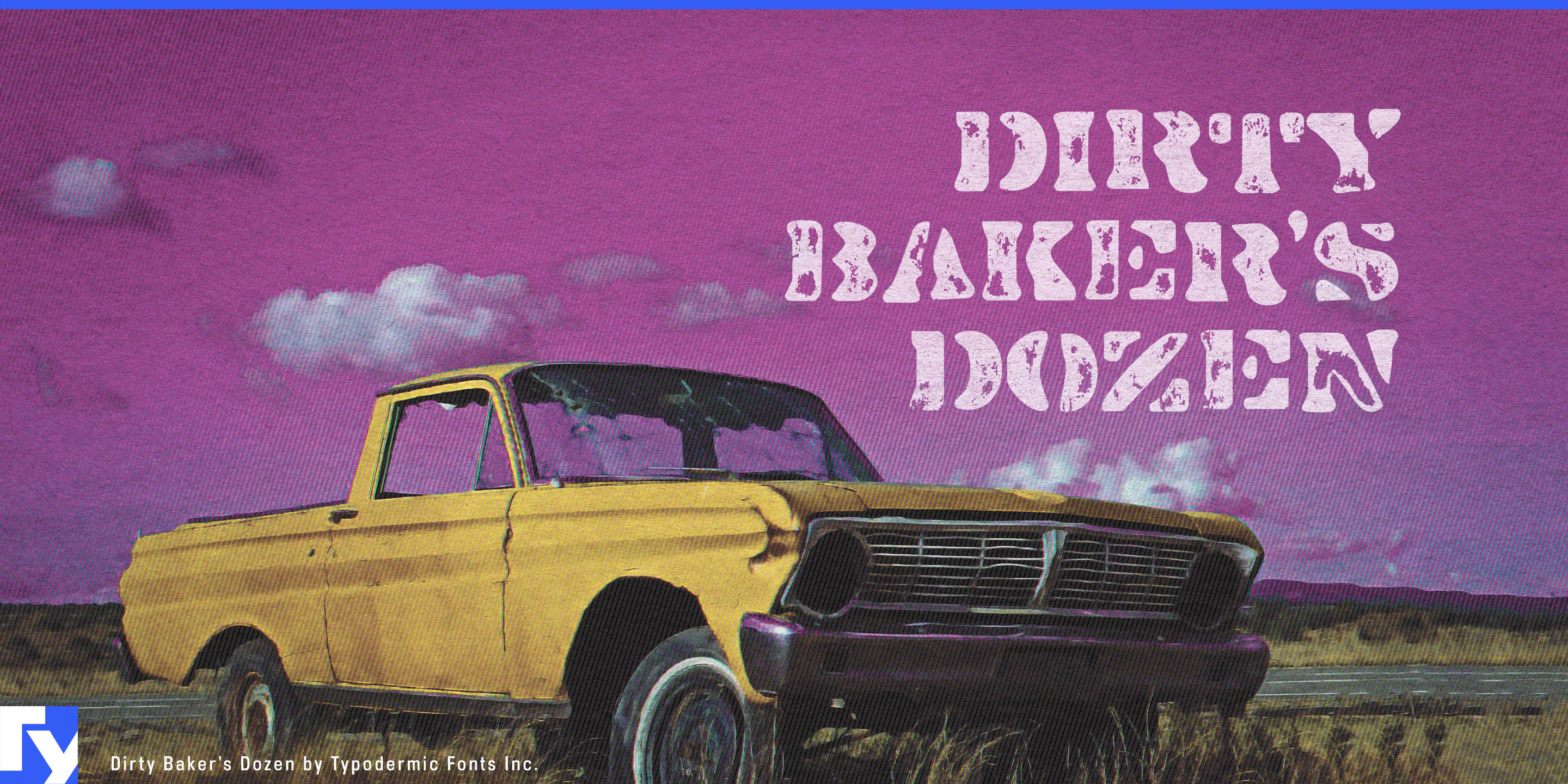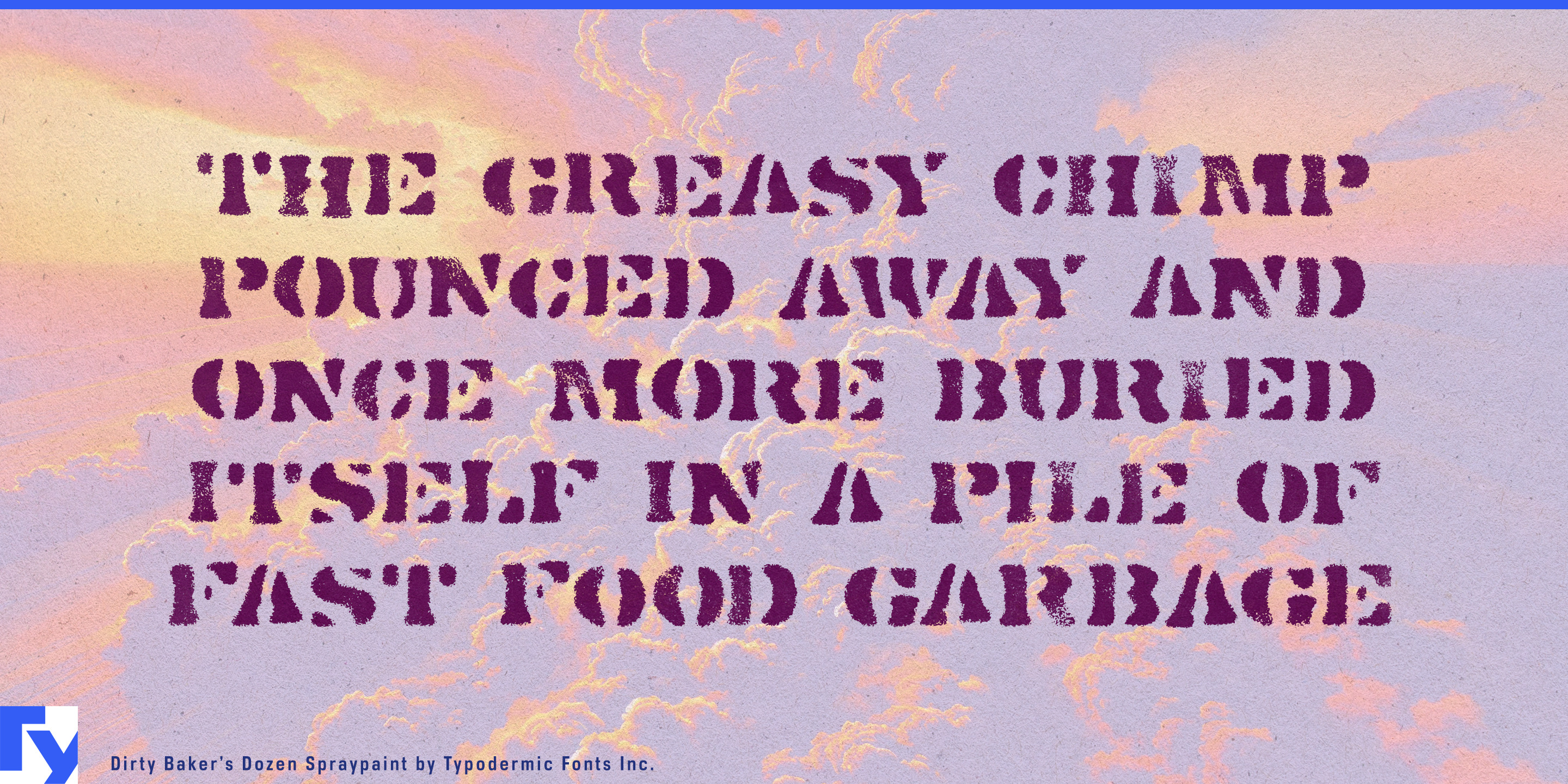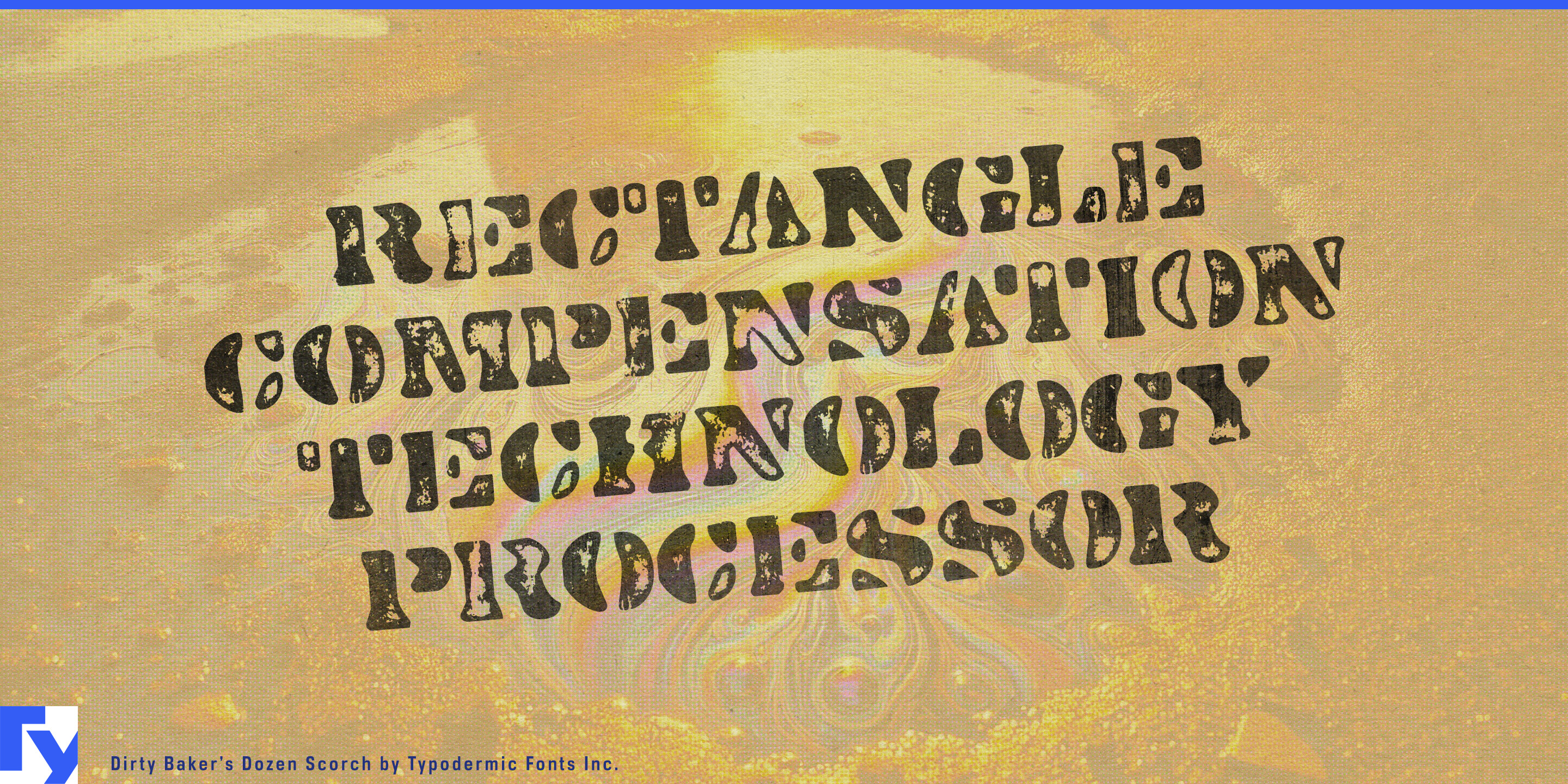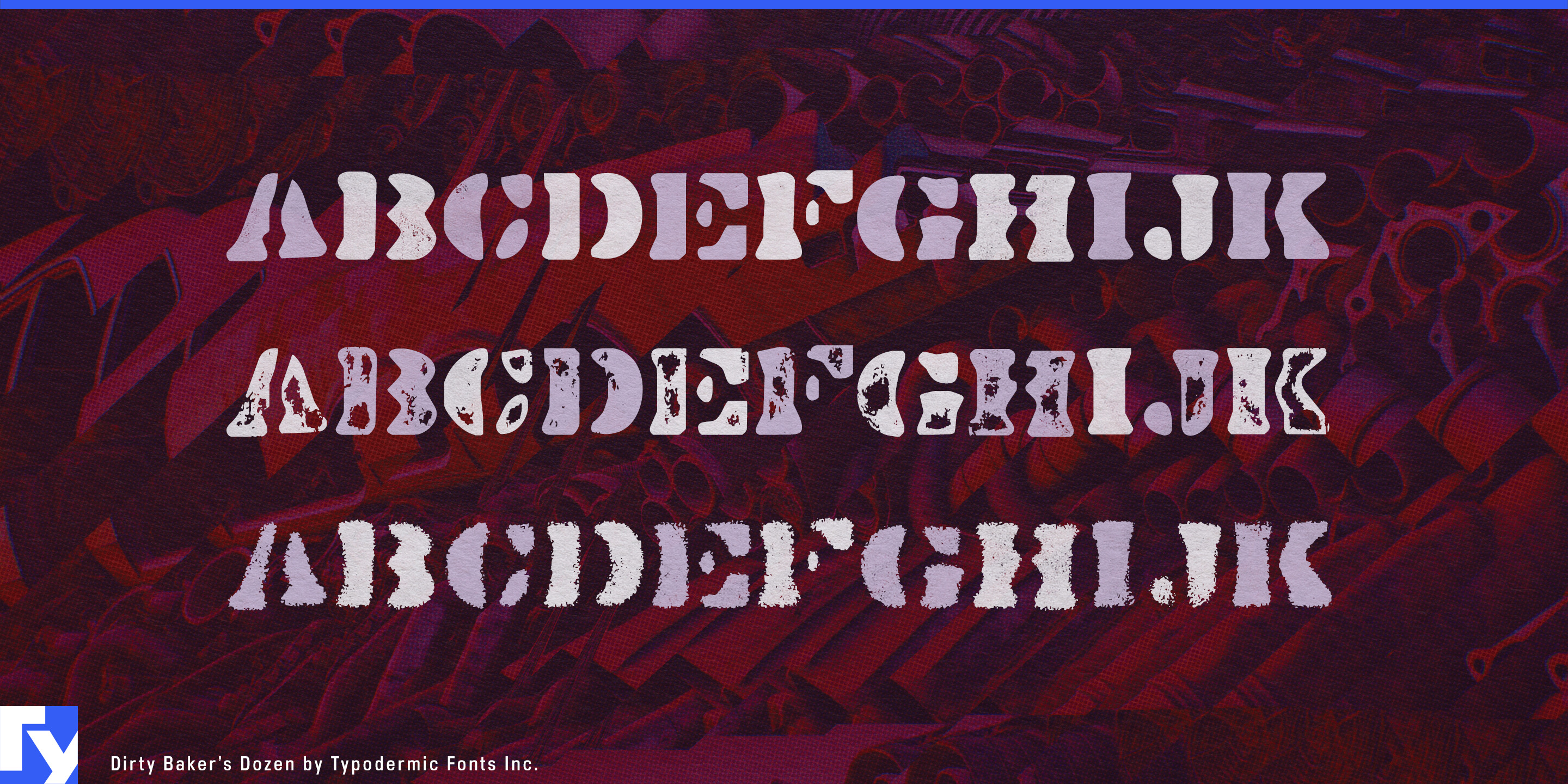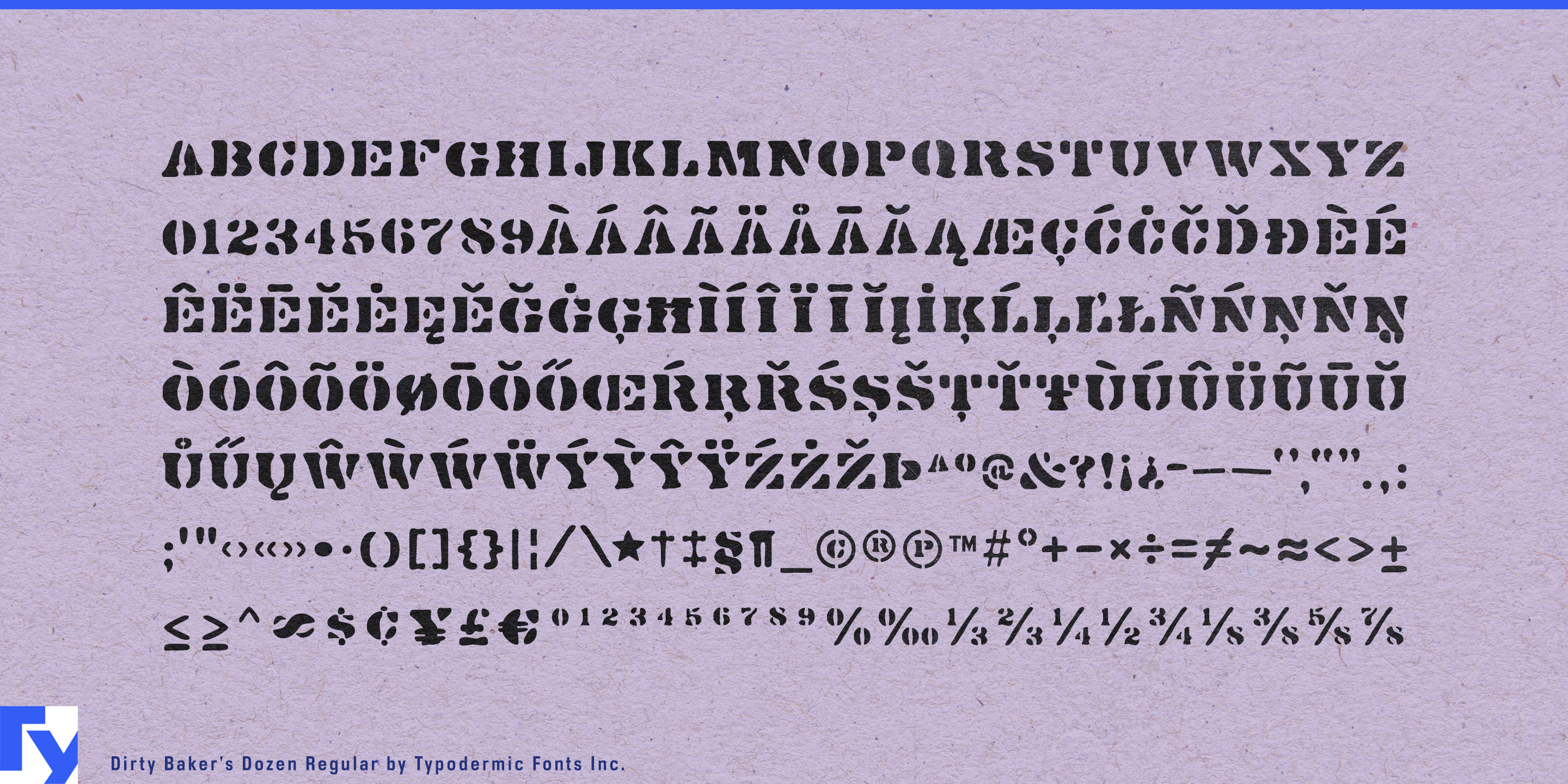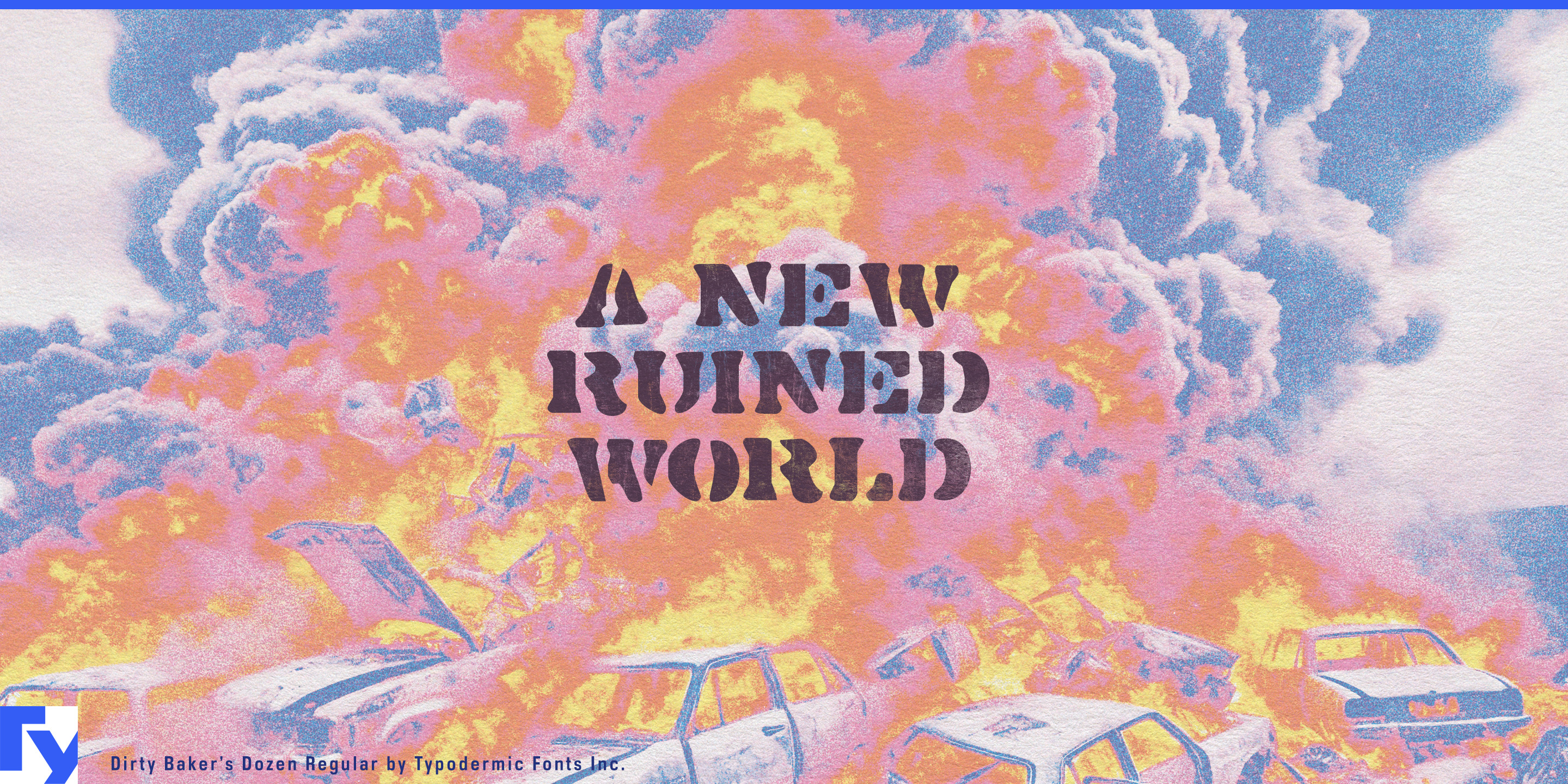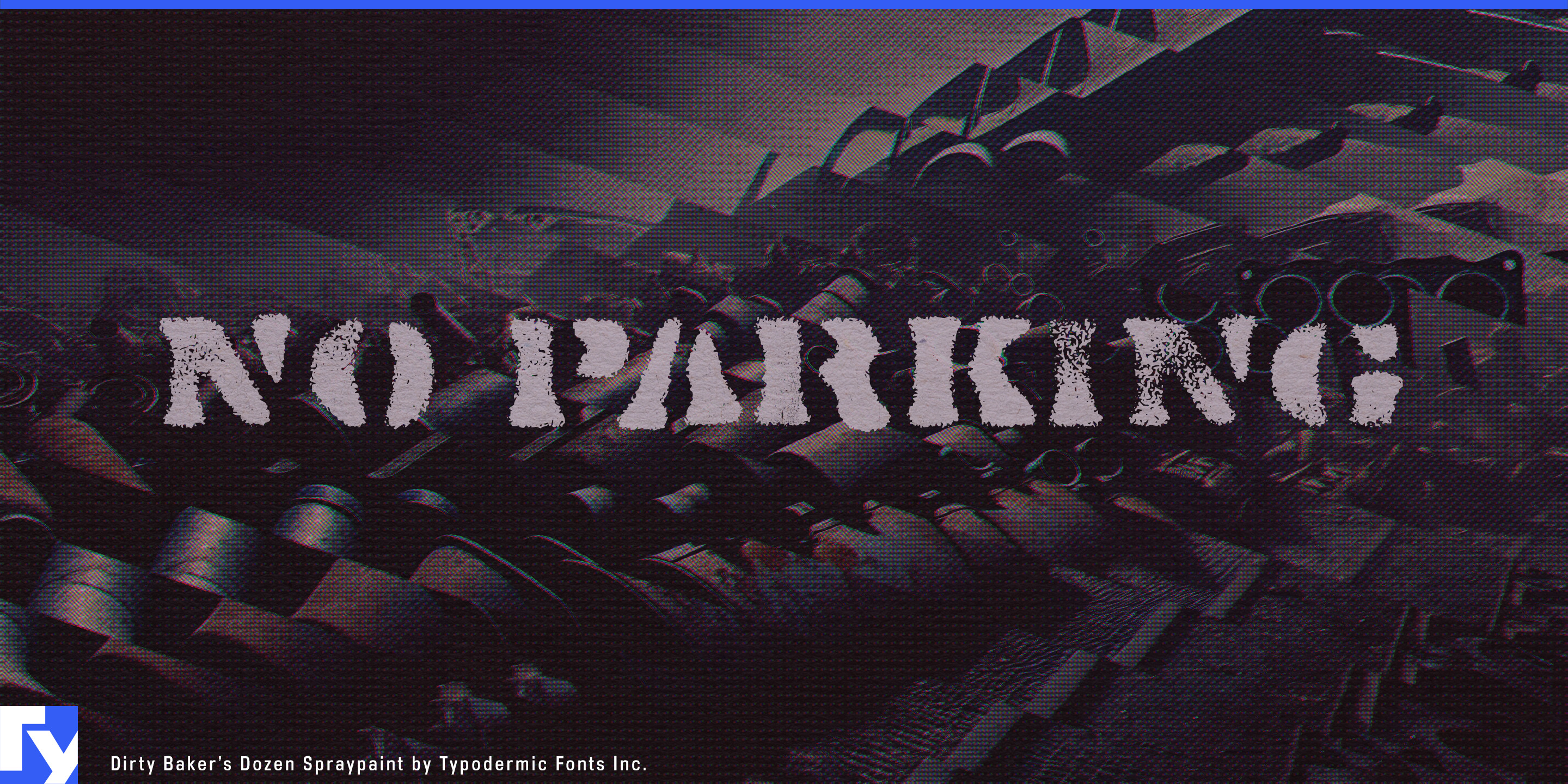
Dirty Baker’s Dozen
Distressed typography creates a practical problem: damage is easy to add once, but difficult to manage as part of a consistent identity. A clean stencil can be roughed up for one image, yet the treatment has to be rebuilt whenever the wording changes. Start with a heavily distressed font instead, and every application is locked into the same level of destruction. Dirty Baker’s Dozen solves that by keeping the lettering recognizable while changing what appears to have happened to it.
The family provides three versions of the same all-caps stencil construction. Regular presents the design in its relatively intact state; Scorch breaks the surfaces apart with heavier deterioration; Spraypaint turns the same forms into rough painted markings. The textured styles use alternate letter combinations to help repeated damage feel less mechanical.
That makes Dirty Baker’s Dozen especially useful for games and fictional worlds where one identity has to exist both inside and outside the environment. A survival game, extraction shooter or industrial-horror title might need clean promotional graphics, then the same visual language on faction names, bunker signs, supply crates, vehicle markings and mission locations. Regular establishes the identity; Scorch suggests wear, neglect or impact; Spraypaint turns it into an improvised marking.
Off-road motorsports and powersports offer a similar progression. Rally raid, motocross, enduro and ATV/UTV graphics move constantly between clean sponsor material and dirt, machinery and battered surfaces. The family can carry race-series names, team identifiers, special-edition graphics and course typography while maintaining a consistent skeleton across polished and degraded applications.
Rugged equipment provides another strong setting. Portable power stations, generators, recovery gear, protective cases and workshop storage systems can use Dirty Baker’s Dozen for product-family names and campaign graphics while a straightforward sans handles specifications and safety information. Heavy entertainment can use the same three-state approach across metal and hardcore festivals, industrial-music tours, merchandise and stage graphics.
Dirty Baker’s Dozen is strongest when a few words need to survive several levels of damage. Regular, Scorch and Spraypaint let the same name appear before the abuse, after the abuse, or painted back onto whatever remains.